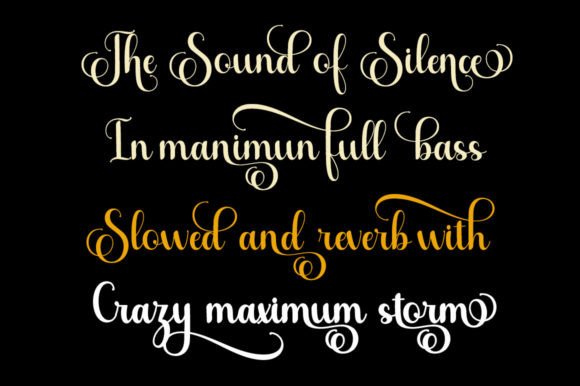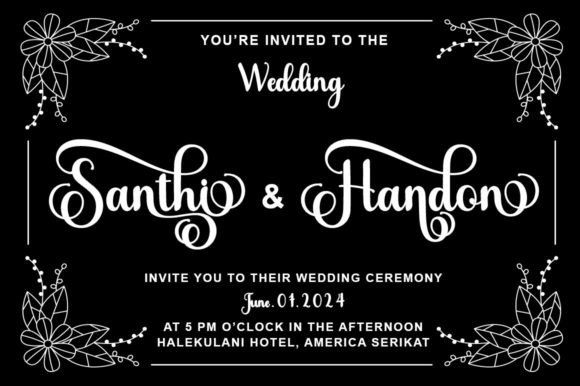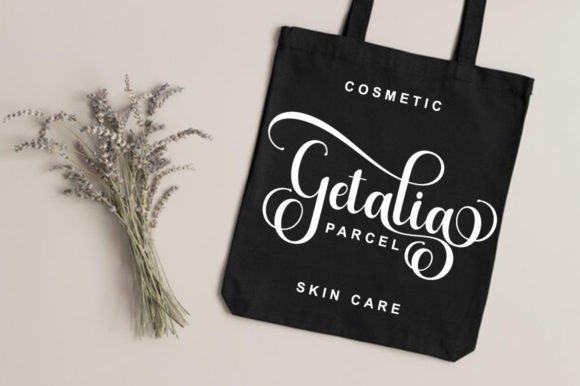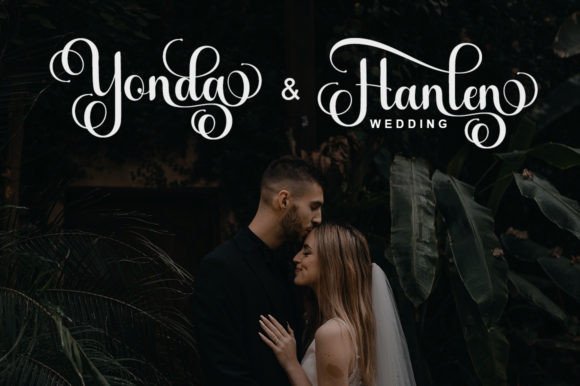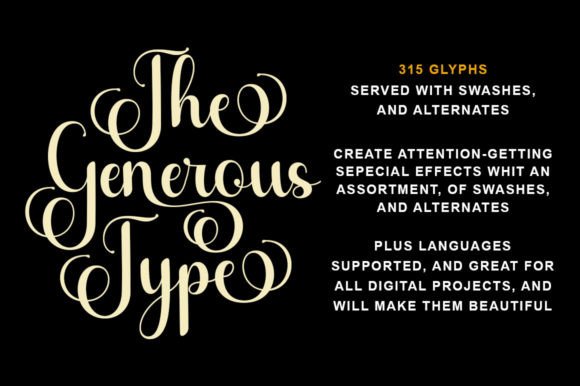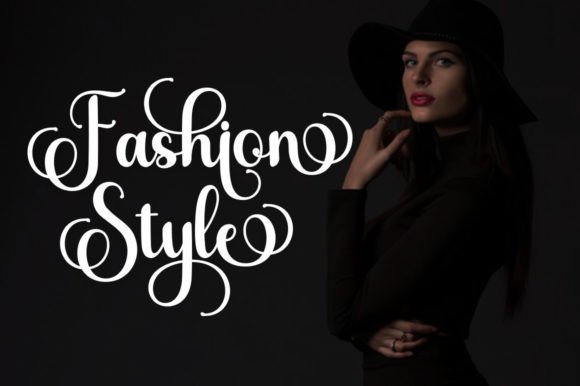
Introduction to Santha Font
As a designer, you know the feeling of being stuck in a creative rut, staring at a blank canvas with no idea where to start. But then, you stumble upon the perfect design resource – a beautiful, elegant font that sets your imagination ablaze. For me, that moment came when I discovered the Santha Font. Its smooth, flowing script is a masterclass in high-quality design, making it the perfect addition to any creative project.
With its balanced character and luxurious feel, the Santha Font is the ultimate design resource for designers looking to elevate their work. Whether you’re creating wedding invitations, cards, or any other design that requires a touch of sophistication, this font is sure to deliver. And the best part? It’s available for free download, making it a valuable asset for designers of all levels.
Key Features of Santha Font
- High-quality vector font with a unique, elegant design, ideal for creative projects and design resources.
- Designed to be highly customizable, with a range of sizes and resolutions available, from 72 dpi to 300 dpi.
- Comes in a range of styles and weights, including bold, light, and regular, making it suitable for a variety of design applications.
- Perfect for use in creative projects, such as logos, graphics, and typography-based designs, where a high-quality font is essential.
Honest Review: Santha Font
I recently had the chance to work with the Santha Font, and I must say it’s a great addition to any designer’s toolkit. One of the things I love about this font is its high quality and unique aesthetic. It’s perfect for a creative project where you want to stand out from the crowd.
Here are some of the things that work well with the Santha Font:
- ✨ Unique and creative design: This font is perfect for any project where you want to add a touch of elegance and sophistication.
- ✨ Transparent background: This feature makes it easy to use the font on any background, without worrying about any distracting lines or shapes.
- ⚠️ Limited font sizes: While the font looks great at most sizes, it can get a bit distorted at very large or very small sizes.
- ⚠️ Not suitable for all projects: The Santha Font is a bit too fancy for some projects, so be sure to use it judiciously.
Overall, I’m really impressed with the Santha Font. It’s a great resource for designers who want to add a touch of creativity to their projects. Just be sure to use it wisely, and you’ll be sure to get great results.
Santha Font is a high-quality design resource perfect for creative projects. This free download offers a unique and stylish aesthetic that can elevate your designs. With its transparent background, Santha Font is versatile and easy to use in various design applications.
Common Use Cases for Santha Font
Santha Font is perfect for creative projects, such as:
- Birthday invitations
- Wedding stationery
- Business logos
Can I use the Santha Font for web design?